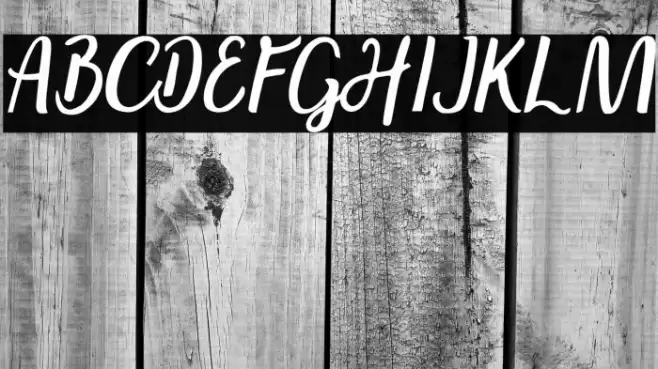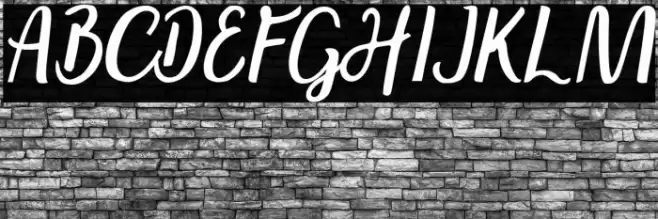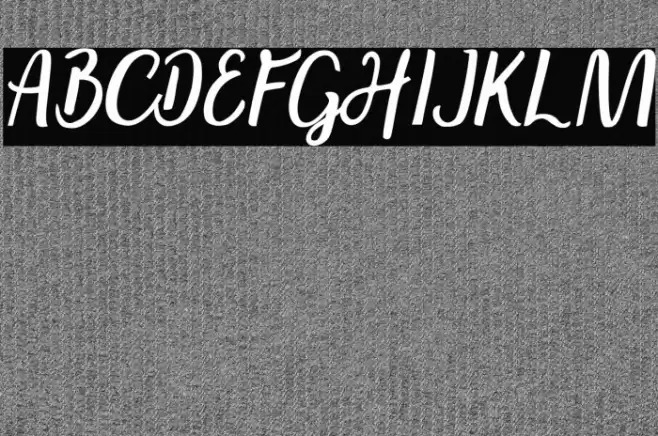
Andaman DEMO Italic Font
Andaman DEMO Italic Description
This font features a dynamic and flowing script style, characterized by its elegant and smooth curves. The letters are connected in a fluid manner, creating a sense of movement and grace. The uppercase letters are bold and prominent, while the lowercase letters maintain a consistent flow, enhancing readability. The overall design exudes a modern yet classic appeal, making it versatile for various design projects. The italic slant adds a touch of sophistication, perfect for creating stylish and eye-catching text.
A dynamic and flowing script font with elegant, connected letters and an italic slant from Uncategorized fonts.
- Font: Andaman DEMO Italic
- Proposed Projects: Ideal for wedding invitations, branding, logo design, and elegant packaging.
- Use Case: Logos, Headlines, Invitations